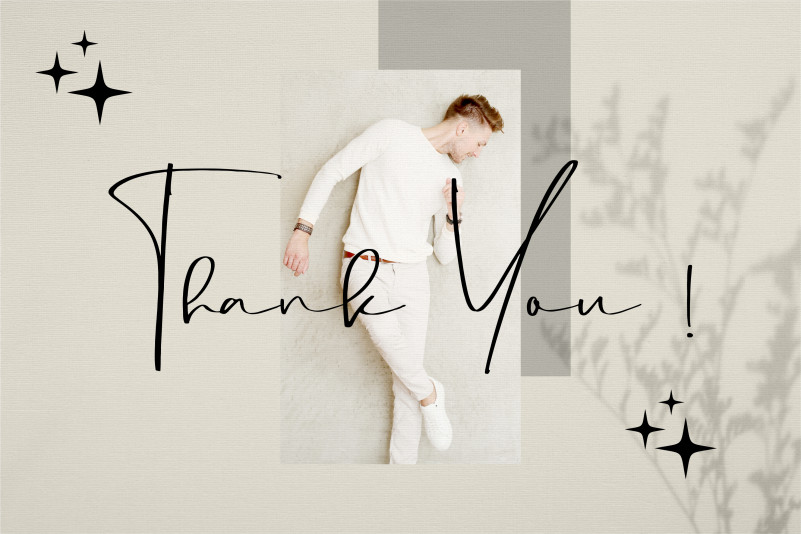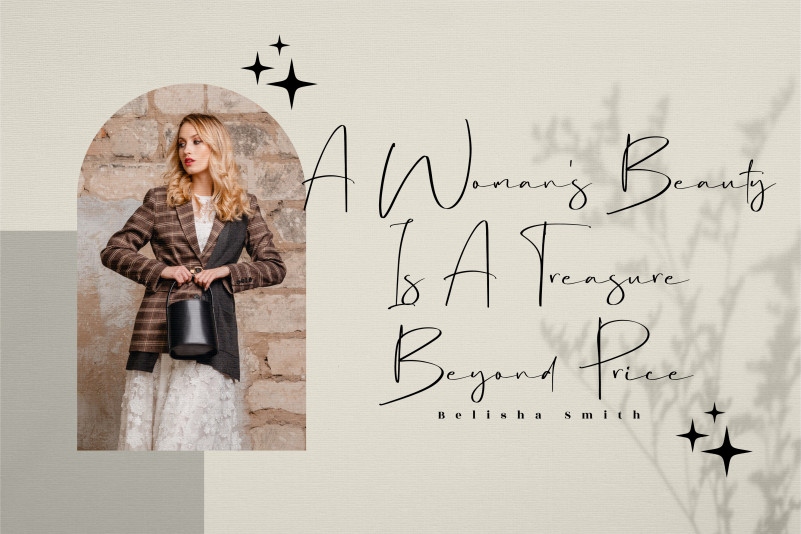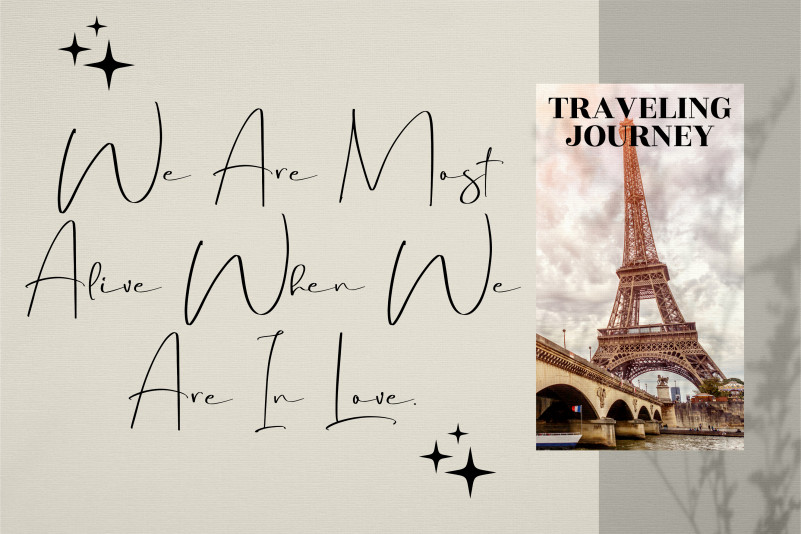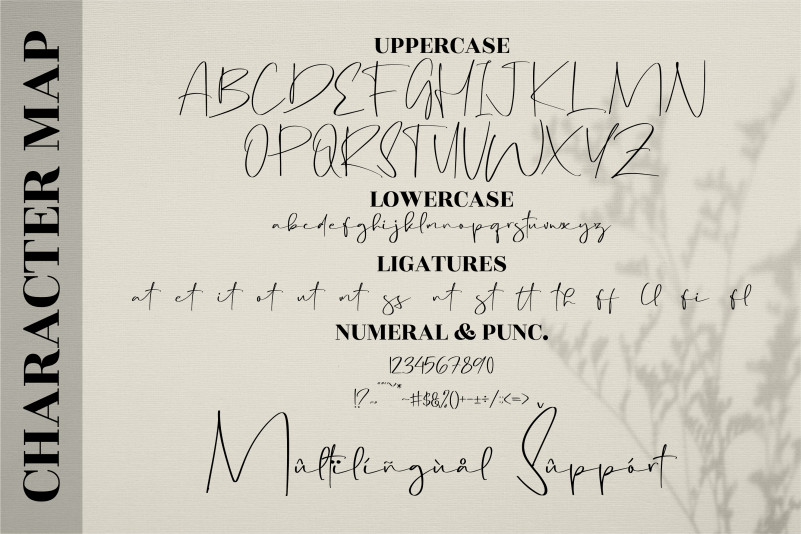
Futuristic Caligraph Font
Futuristic Caligraph Handwritten Font
It’s a premium signature font, suitable for any projects such as: logos, branding projects, homeware designs, product packaging, mugs, quotes, posters, shopping bags, t-shirts, book covers, name card, invitation cards, greeting cards, label, photography, watermark, special events, and all your other luxury projects that need a premium signature taste.